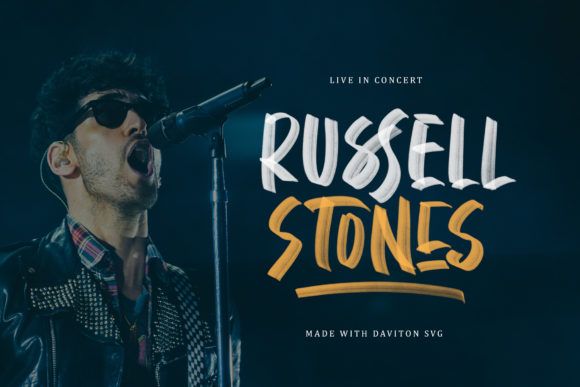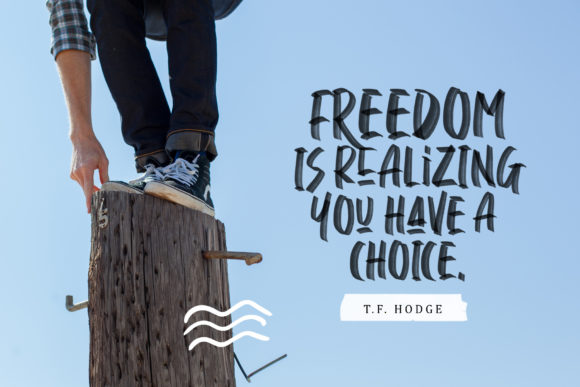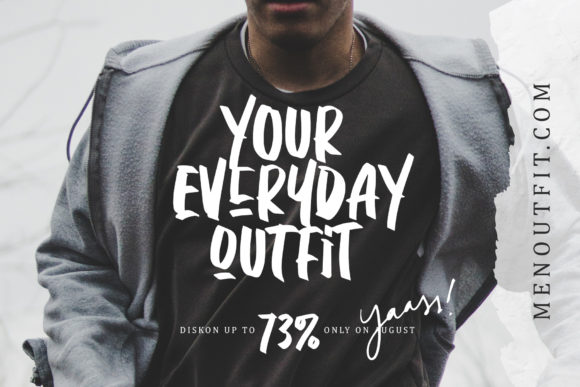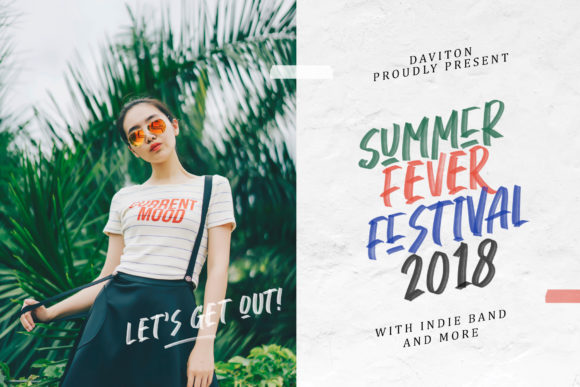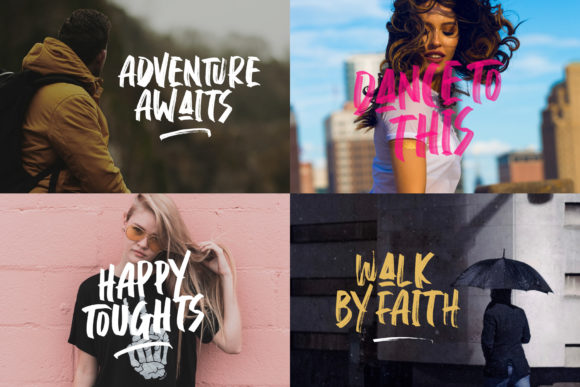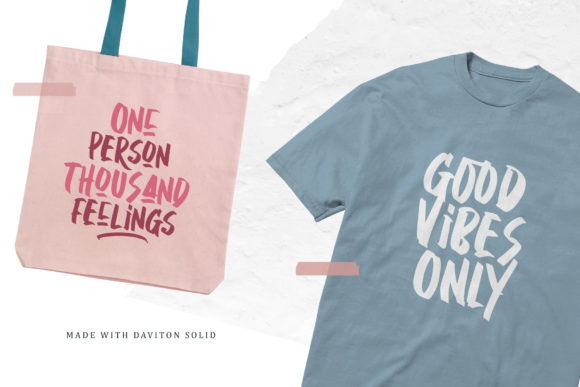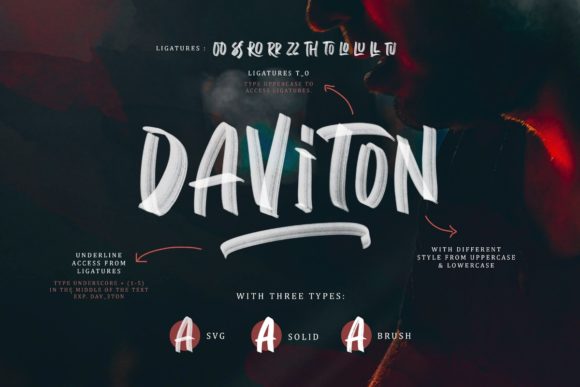
Daviton Font: A Striking Display Font for Creative Projects
Are you looking for a font that can add a touch of personality to your designs? Look no further than the Daviton Font! This striking display font is perfect for creative projects, and it comes in three styles: brush, solid, and SVG. In this article, we’ll explore the features and benefits of the Daviton Font, and show you how it can be used to take your designs to the next level.
What is the Daviton Font?
The Daviton Font is a modern display font that is designed to make a statement. It’s a versatile font that can be used for a wide range of creative projects, from promotional materials to digital designs. The font comes in three styles: brush, solid, and SVG. This means that you can choose the style that best suits your needs, and use it to create realistic handwriting, bold headings, and more.
Key Features of the Daviton Font
• Three styles: The Daviton Font comes in three styles: brush, solid, and SVG. This means that you can choose the style that best suits your needs.
• Realistic handwriting: The brush style of the Daviton Font is perfect for creating realistic handwriting. It’s ideal for adding a personal touch to your designs.
• Scalable: The SVG version of the Daviton Font is scalable, which means that it can be used at any size without losing quality.
Benefits of Using the Daviton Font
There are many benefits to using the Daviton Font in your designs. Here are just a few:
• Adds personality: The Daviton Font adds a touch of personality to your designs. It’s perfect for creating unique and eye-catching promotional materials.
• Versatile: The Daviton Font is versatile, which means that it can be used for a wide range of creative projects.
• Time-saving: The Daviton Font is a time-saving solution for designers. It’s easy to use, and it can be used to create professional-looking designs in minutes.
Creative Ways to Use the Daviton Font
The Daviton Font can be used in a wide range of creative projects. Here are some ideas:
• Promotional materials: Use the Daviton Font to create eye-catching promotional materials, such as posters, flyers, and brochures.
• Digital designs: Use the Daviton Font to create digital designs, such as social media graphics and email headers.
• Handmade crafts: Use the Daviton Font to create handmade crafts, such as cards and invitations.
The Daviton Font is a striking display font that is perfect for creative projects. It comes in three styles: brush, solid, and SVG, and it’s easy to use. The font adds a touch of personality to your designs, and it’s versatile and time-saving. Whether you’re a designer or a crafter, the Daviton Font is a great addition to your toolkit.